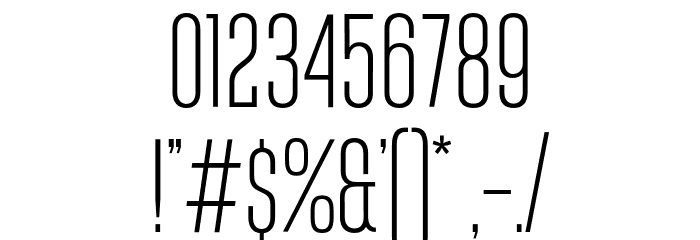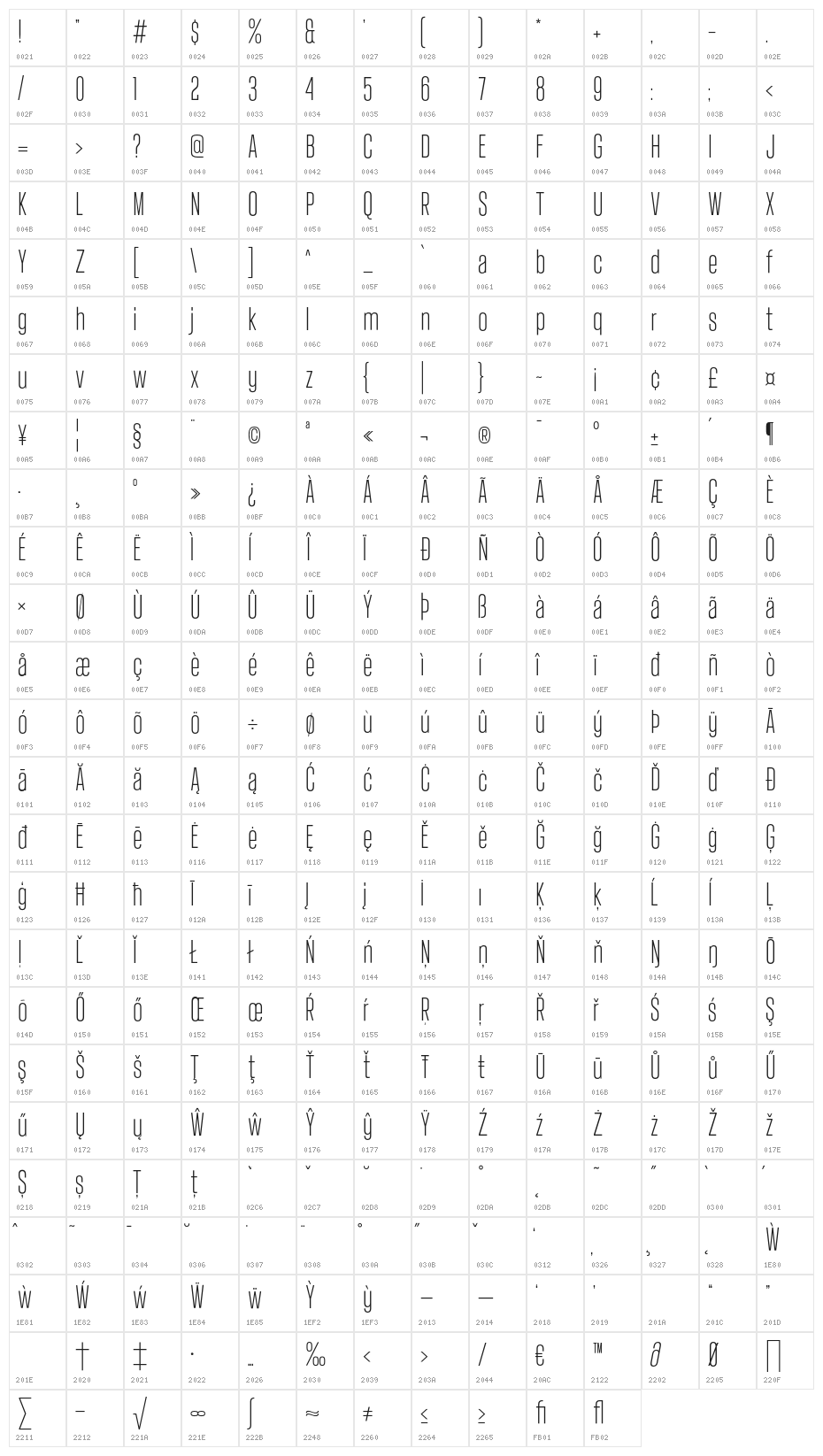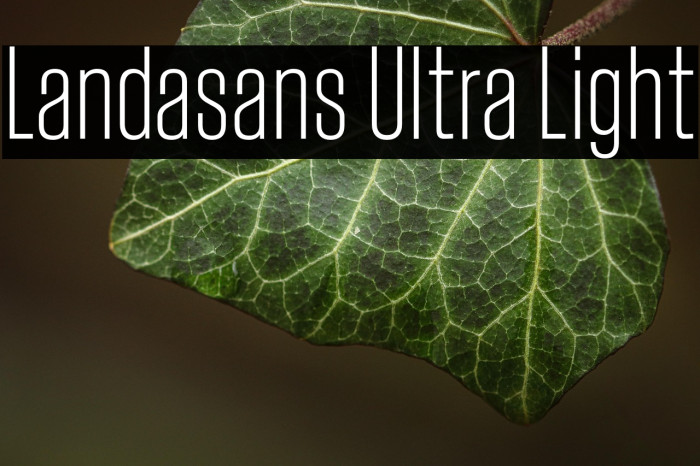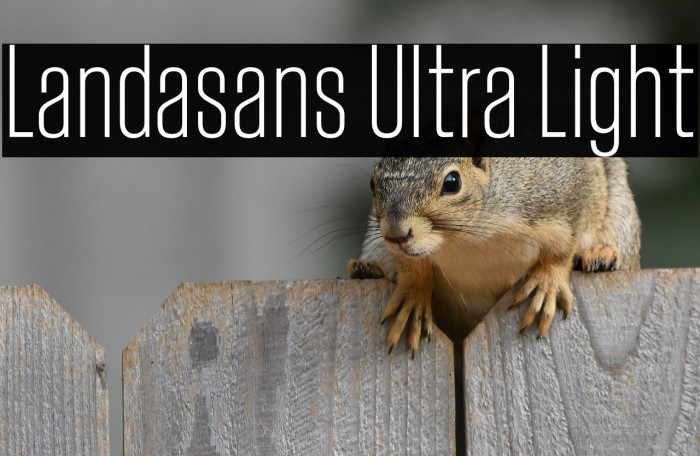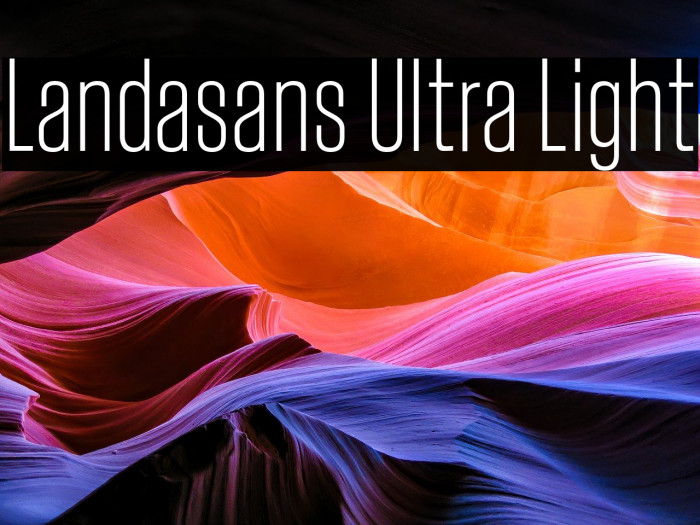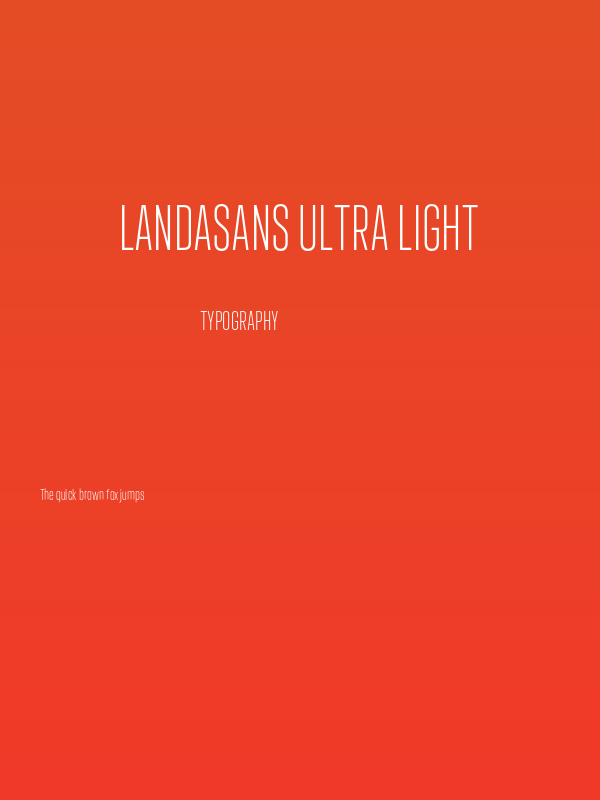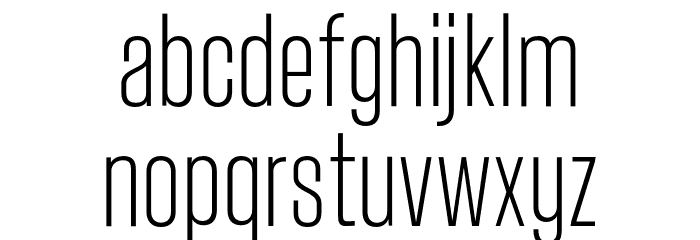
Landasans Ultra Light Font
Landasans Ultra Light Description
This font features a sleek and ultra-light design, characterized by its tall, narrow letters and minimalistic aesthetic. The uppercase and lowercase letters maintain a consistent height, contributing to a uniform appearance. The numerals are clean and straightforward, matching the overall style of the alphabet. Special characters are elegantly integrated, maintaining the font's modern and sophisticated look. The font's thin strokes and elongated forms give it a contemporary feel, making it suitable for modern design projects.
| Proposed Projects | Ideal for fashion magazines, minimalist branding, modern websites, and elegant invitations. |